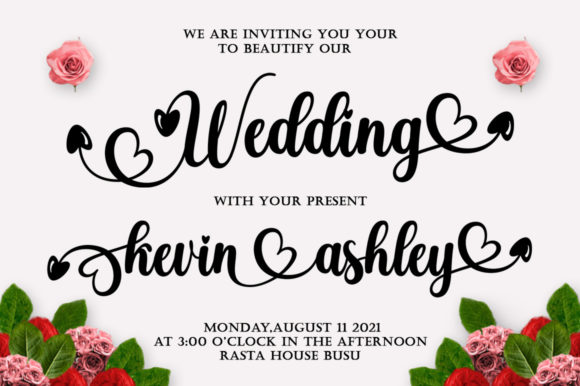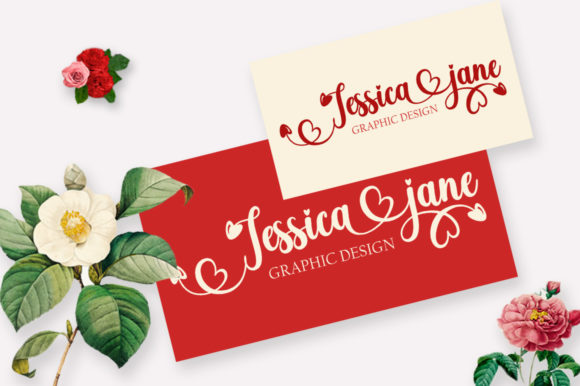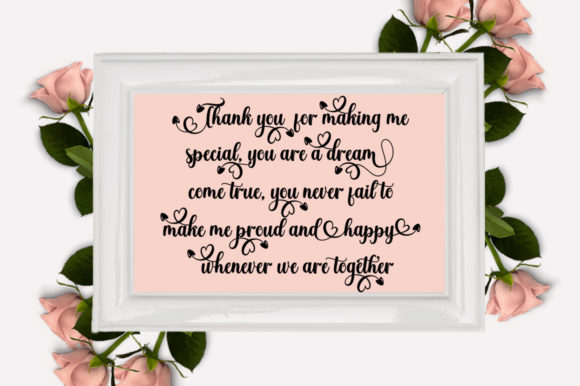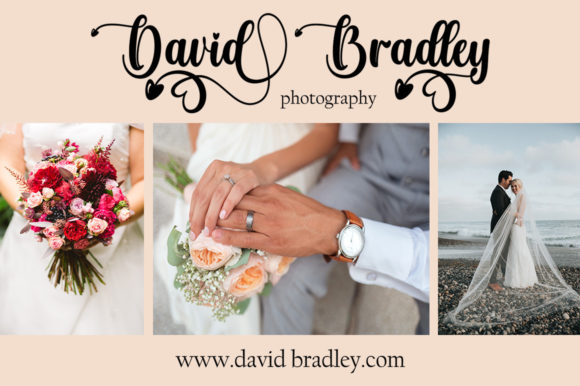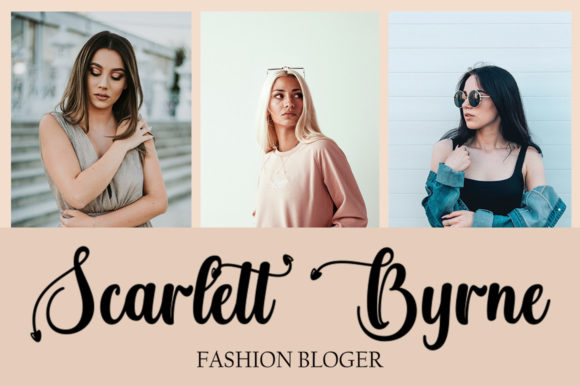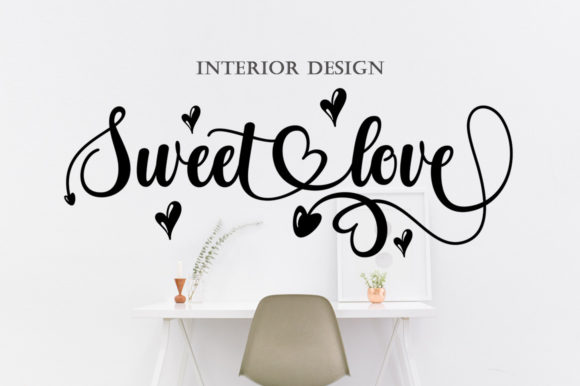
Introduction to Pretty Baby Font
Pretty Baby is a romantic and sweet calligraphy typeface with characters that dance along the baseline.
Key Features of Pretty Baby Font